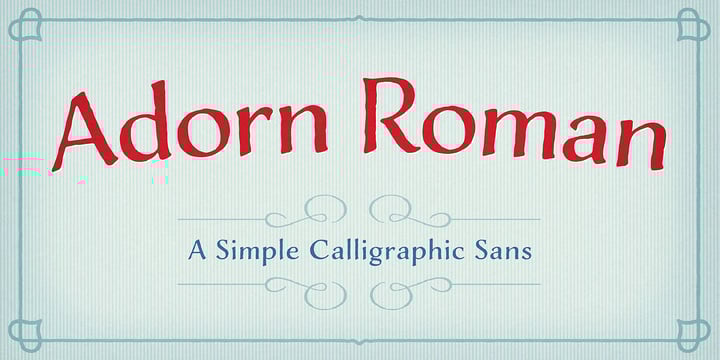
Adorn Font Family was designed by Laura Worthington and published by Laura Worthington. Adorn contains 24 styles and family package options. More about this family
About Adorn Font Family
What can be more lovely than a wedding, an invitation or a gift from the heart? One whose presentation uses the warm and welcoming family of typefaces, Adorn. With a modern and sometimes quirky twist on the staid, almost corporate look of formal invitations, this family of hand lettered typefaces arms designers with a breathtakingly large number of fonts that work harmoniously, despite the distinctiveness of each. Adorn offers seven display fonts, four script designs, monograms, ornaments, illustrations, banners, frames, and catchwords. See what’s included! http://bit.ly/2hYM1ur *NOTE* Basic versions DO NOT include swashes, alternates or ornaments These fonts have been specially coded for access of all the swashes, alternates and ornaments without the need for professional design software! Info and instructions here: http://lauraworthingtontype.com/faqs/
Adorn
About Laura Worthington
A graphic designer since 1997, my focus has moved, through serendipity and lifelong fascination, to type design by implementing the craft of hand lettering. I also create a diverse selection of illustrative work. My love of letters began when I was nine years old. I learned italic printing in elementary school, I pursued it further, teaching myself different calligraphic styles from any book I could find on the subject. In college, a professor pointed me to pages in a design book's lettering section, and I swooned. Such an artistic and spontaneous task, with pen or brush pen or steel nib pen in hand, yet so controlled, as each letter perfectly approaches or intertwines with the next, in a flowing precision. An ageless craft yet, in the right hands, as effective in identity or messaging as the most modern method, as it subliminally adds a strongly human, and thus personal, element. I knew to my core that I'd found my lifework. In September of 2010, I transitioned from freelance graphic design to typeface design. The intent of my typefaces is to create something unique and well designed, filling a niche in the vast marketplace of fonts, and offering several design possibilities through the addition of alternates, swashes and ornaments. I love creating letters and I aim to demonstrate that passion through my designs. My hope is that my typefaces will assist you in your creative endeavors. Visit my website at www.LauraWorthingtonType.com to view more of my work, or follow me on Twitter: @L_Worthington